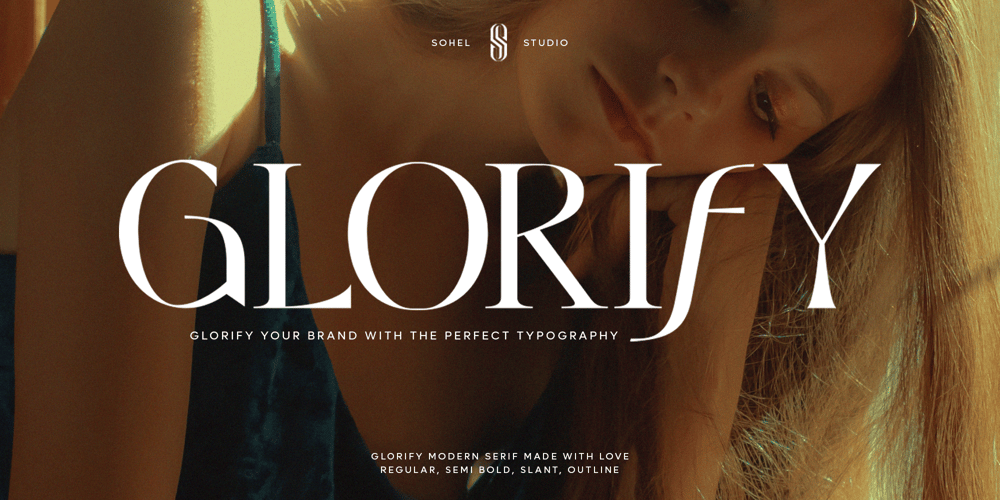
Glorify SH Font Family was designed by Akhmad Husain Rifa’i and published by Sohel Studio. Glorify SH contains 4 styles and family package options. Glorify SH is a Modern vintage serif typeface with Unique alternative , multilingual support with perfect kerning. This typeface is perfect for an elegant & luxury logo , classy editorial design, women’s magazine, fashion brand , cosmetic brand, fashion promotion , modern advertising design, invitation card, art quote, home decoration , book/cover titles, special events, Tote bag, T-shirt, Advertising and much more. Glorify SH Features: · 4 Weights font (Regular, Italic, Outline, Semi Bold) · Uppercase And Lowercase · Alternates · Numerals & Punctuation · Accented characters · Multilingual Support · Unicode PUA EncodedIf you need another format of this font, such as TTF, WOFF and WOFF2, please contact me.While using this product, if you encounter any problem or spot something we may have missed, please don’t hesitate to drop us a message. We’d love to hear your feedbacks in order to further fine-tune our products. Thanks and have a wonderful day .